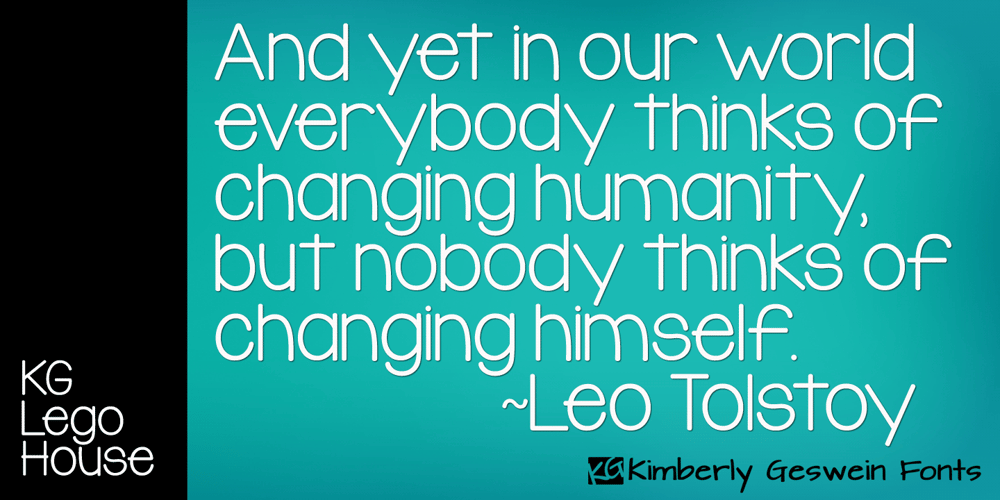
KG Lego House Font Family was designed by Kimberly Geswein and published by Kimberly Geswein. KG Lego House contains 1 styles and family package options. Neat handwriting perfect for teachers. This font includes extra math symbols for teachers. Just enough personality while still being perfectly neat.